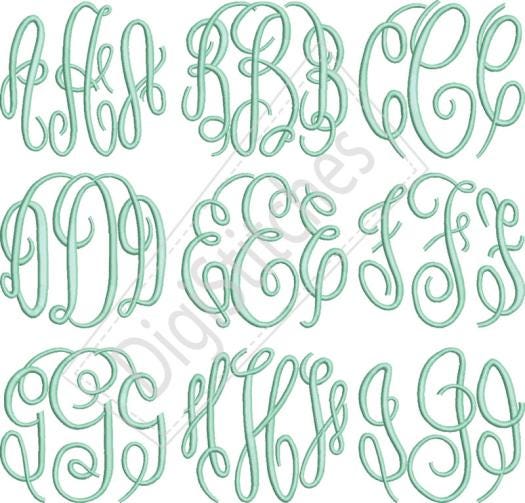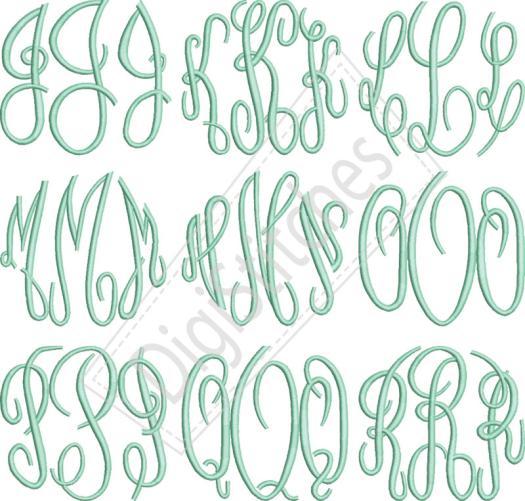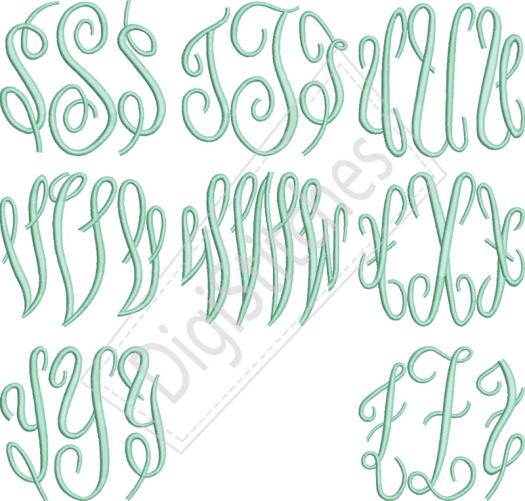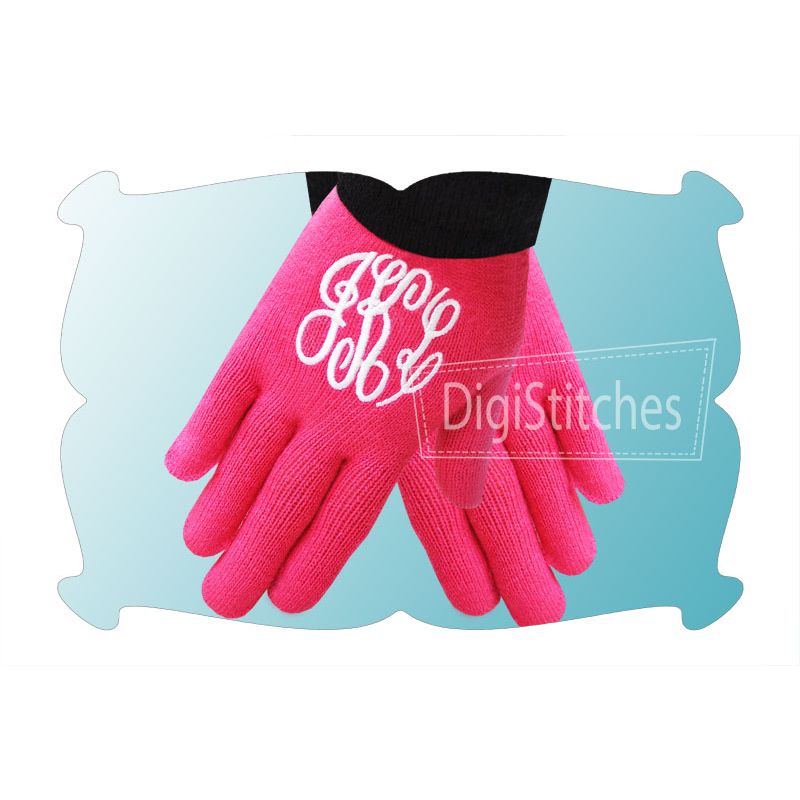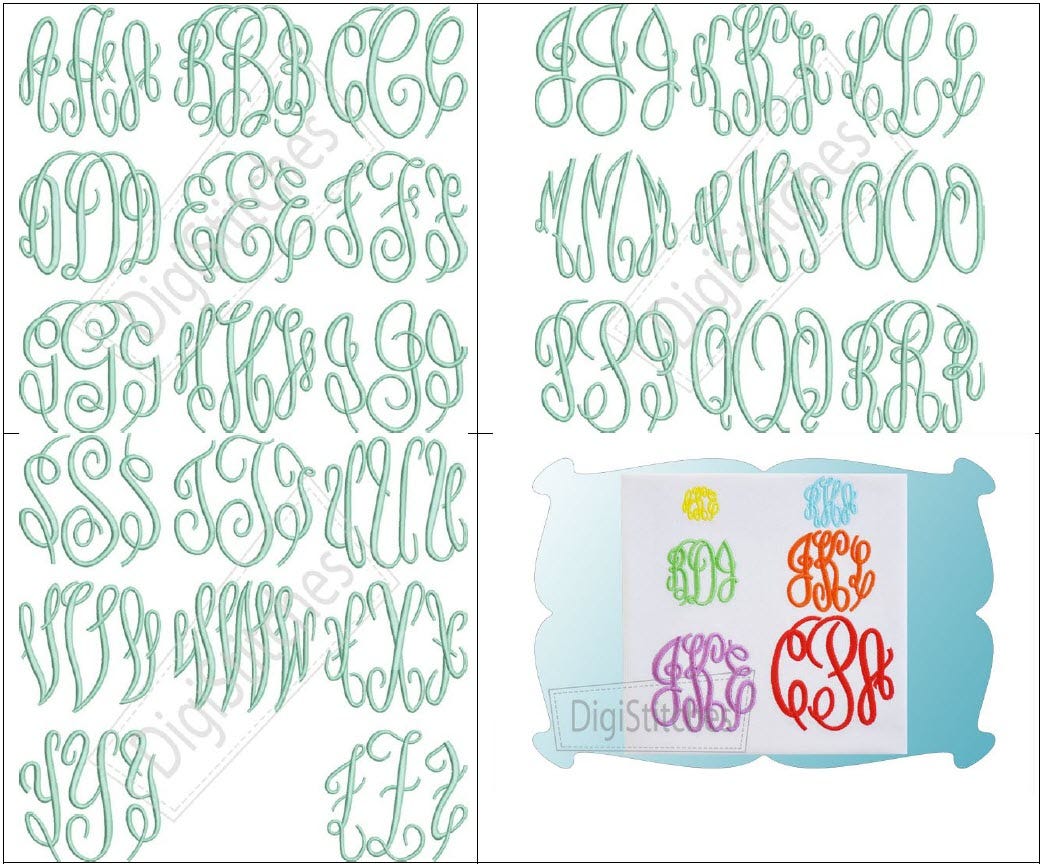
Circle Small Satin Stitch Monogram Embroidery Font
Circle Monogram Small Embroidery Font
A beautiful script circle monogram embroidery font in smaller sizes.
Capital letters A thru Z, with left, middle and right letters to form a circle as shown.